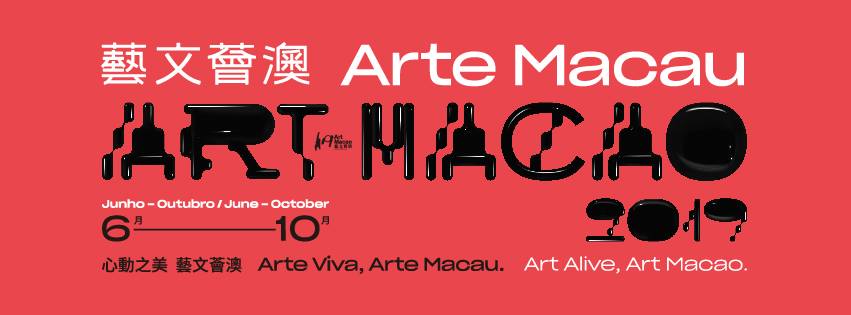
Macao's font scene | ||
Macau-based graphic designer and illustrator who created Animal Font (2013). [Google] [More] ⦿ | |
Portuguese designer (b. 1986) who is based in Macau. Creator of the free script typeface Bettencourt (2012). Her display typeface Radius (2013) is also free. Behance link. Dafont link. [Google] [More] ⦿ | |
John Yu
Kenji Wai Chang was raised In Macau. In 2006, Kenji moved to the United States to study graphic design at San Jose State University. Her Mirage typeface (2012) is based on Salvador Dali's paintings. [Google] [More] ⦿ | |
Download the CFMIN family (seven partial Chinese fonts). [Google] [More] ⦿ | |
Pedro Tunho was born in Hong Kong and grew up in Macau and Taiwan. Now based in Macau, he created a cool display typeface called Half (2012) for the identity of Half Hlaf. [Google] [More] ⦿ | |